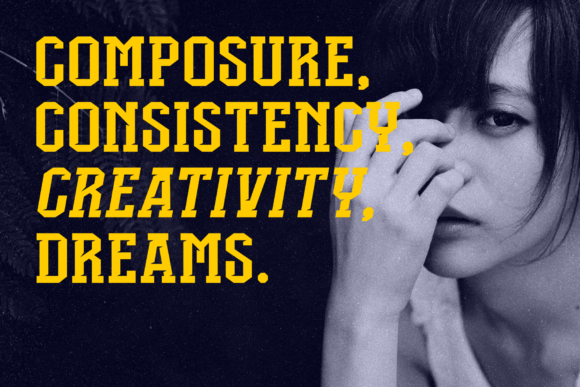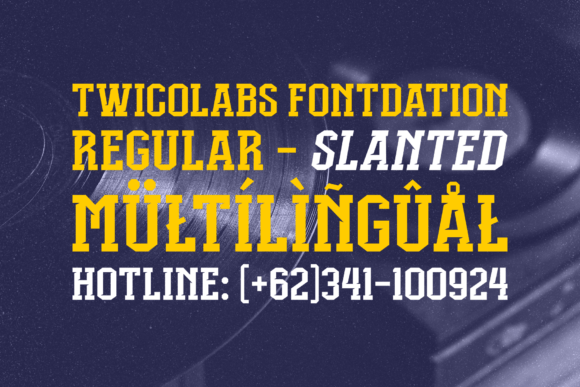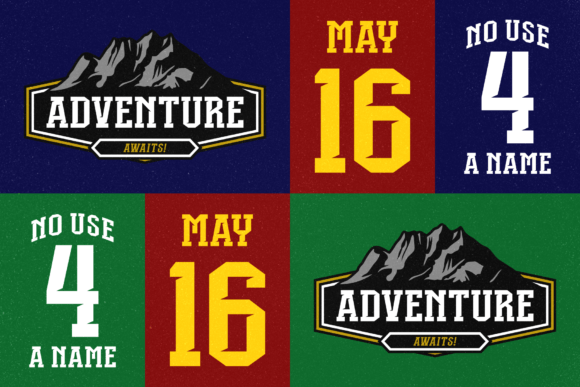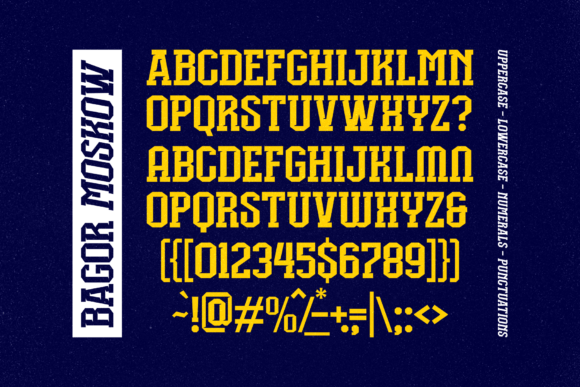
Introducing Bagor Moskow: The Ultimate Font for Sports and Gaming Design
In the world of typography, fonts play a crucial role in conveying the tone and personality of a brand. For designers and crafters, finding the right font can make all the difference in creating visually appealing and effective designs. If you’re looking for a font that’s perfect for sports, gaming, and bold branding, look no further than Bagor Moskow.
A Classic Inspiration with a Modern Twist
Bagor Moskow is a blocky and stiff-looking font that’s inspired by the classic letters often used on sports jerseys and apparel. The font’s design is rooted in the nostalgia of traditional sports typography, but with a modern twist. By adding some subtle details, we’ve made Bagor Moskow relevant to today’s design trends, making it an excellent choice for a wide range of applications.
Perfect for Sports and Gaming Design
Bagor Moskow is specifically designed with sports and gaming in mind. Its bold, chunky letters are perfect for creating eye-catching logos, jerseys, and branding materials. The font’s stiff, athletic look is sure to evoke the energy and competition of the sports world, making it an excellent choice for:
- Logo and branding design
- Sports jerseys and apparel
- E-sports design and gaming branding
- Headlines and titles
What Makes Bagor Moskow Stand Out
So, what sets Bagor Moskow apart from other fonts? Here are a few key features that make it an excellent choice for designers and crafters:
- Unique blend of classic and modern design: Bagor Moskow’s inspiration from classic sports typography is balanced with modern details, making it a versatile font that suits a wide range of applications.
- Highly legible: The font’s bold, chunky letters ensure that your designs are easy to read, even at small sizes.
- Customizable: With its wide range of applications, Bagor Moskow can be used in various contexts, from sports and gaming to branding and advertising.
Tips for Using Bagor Moskow
To get the most out of Bagor Moskow, here are some tips for using the font in your designs:
- Pair with contrasting fonts: Combine Bagor Moskow with a contrasting font to create visual interest and add depth to your designs.
- Experiment with colors and textures: The font’s bold design makes it perfect for experimenting with different colors and textures.
- Keep it bold: Don’t be afraid to use Bagor Moskow in bold, eye-catching applications – it’s designed to make a statement!
Bagor Moskow is an exceptional font that’s perfect for designers and crafters looking to create bold, eye-catching designs. With its unique blend of classic and modern design, high legibility, and customizability, it’s an excellent choice for a wide range of applications. Whether you’re working on sports and gaming design, branding, or advertising, Bagor Moskow is sure to help you create stunning visuals that capture your audience’s attention.